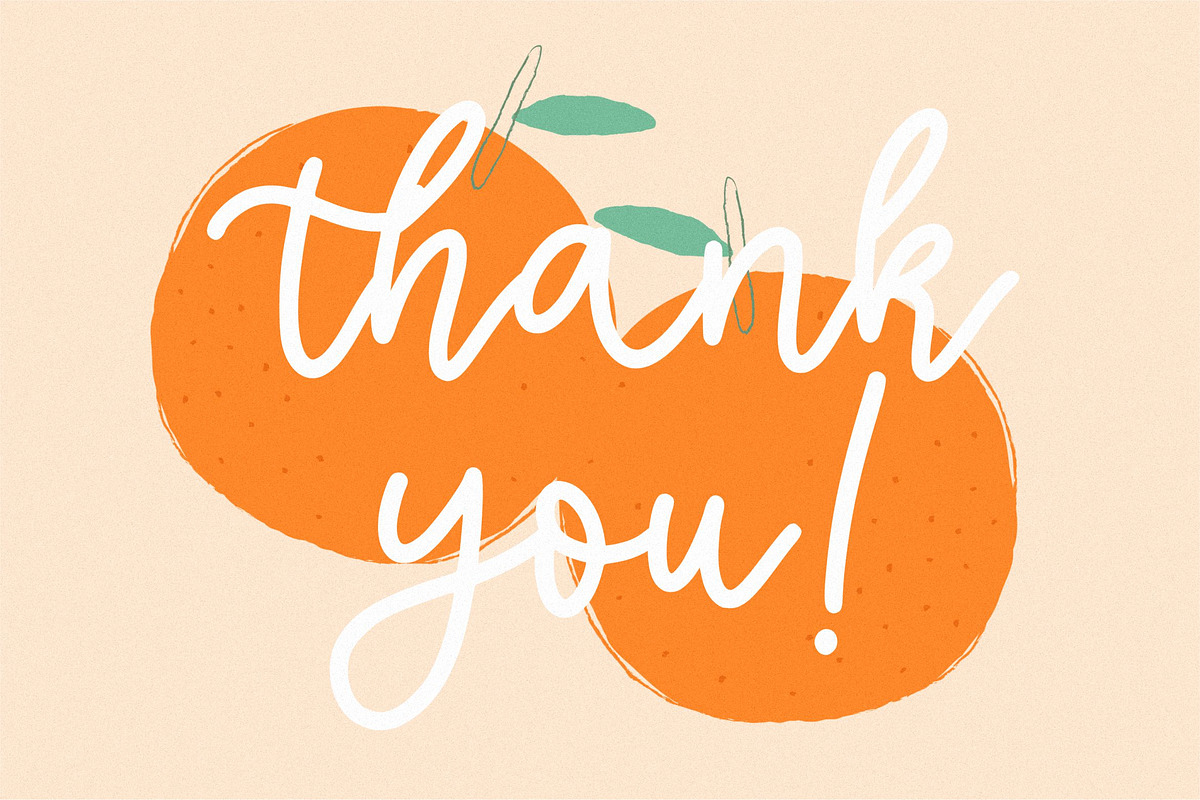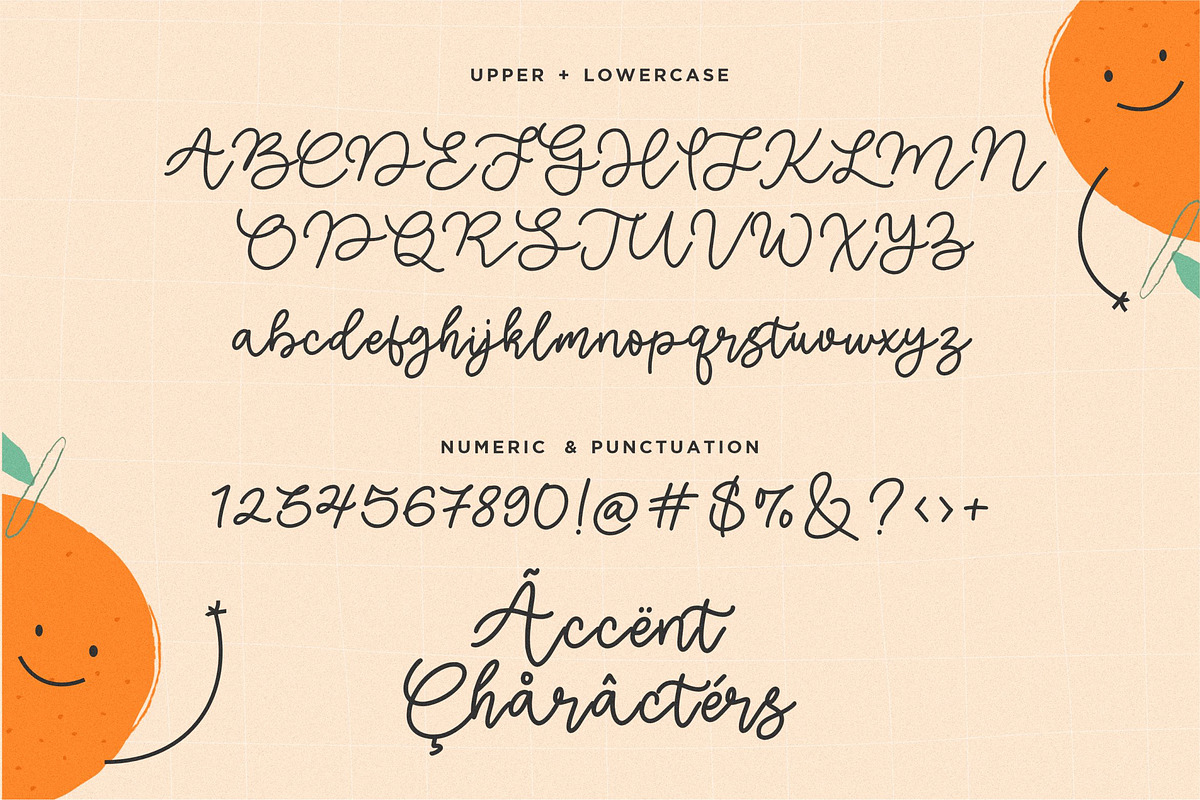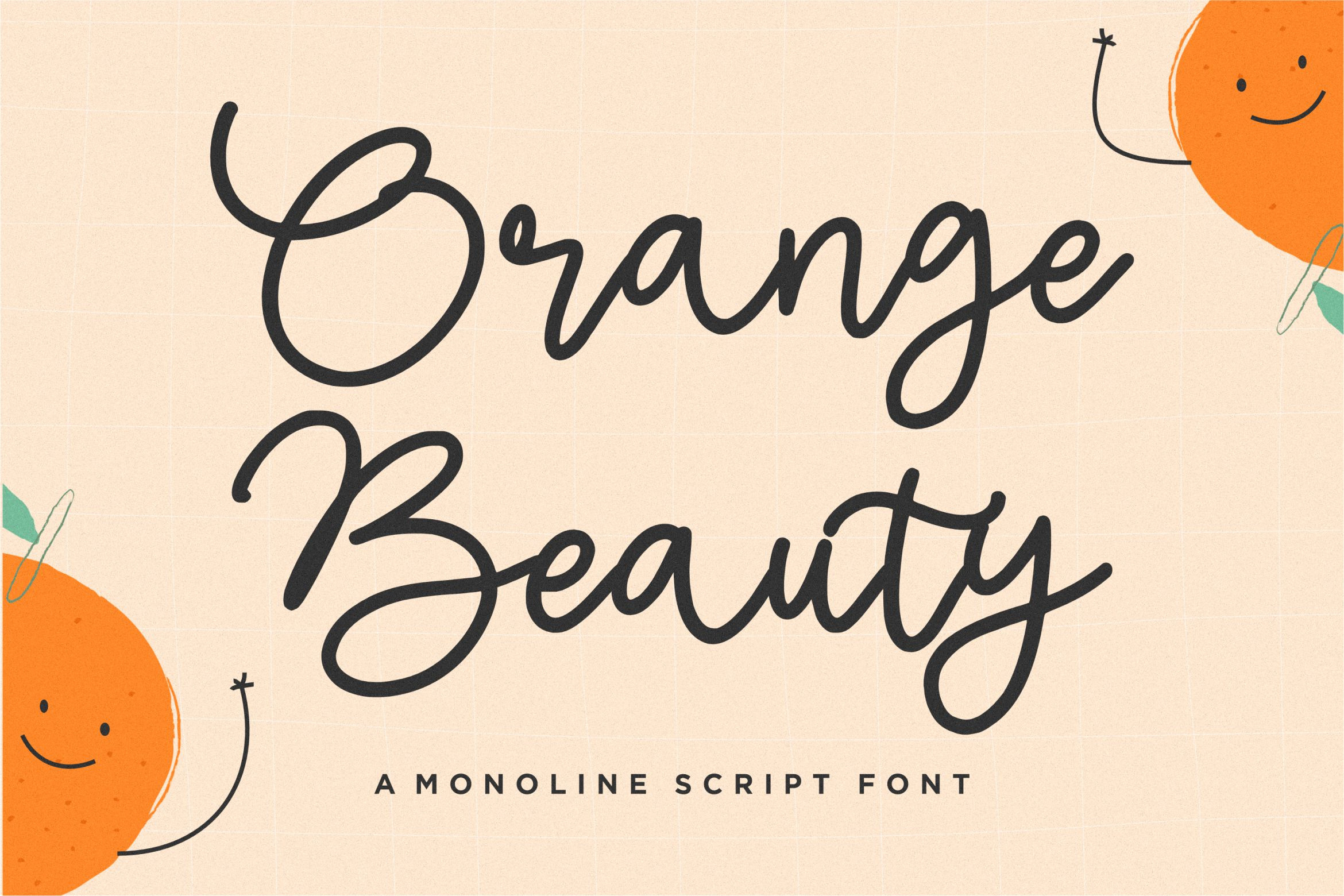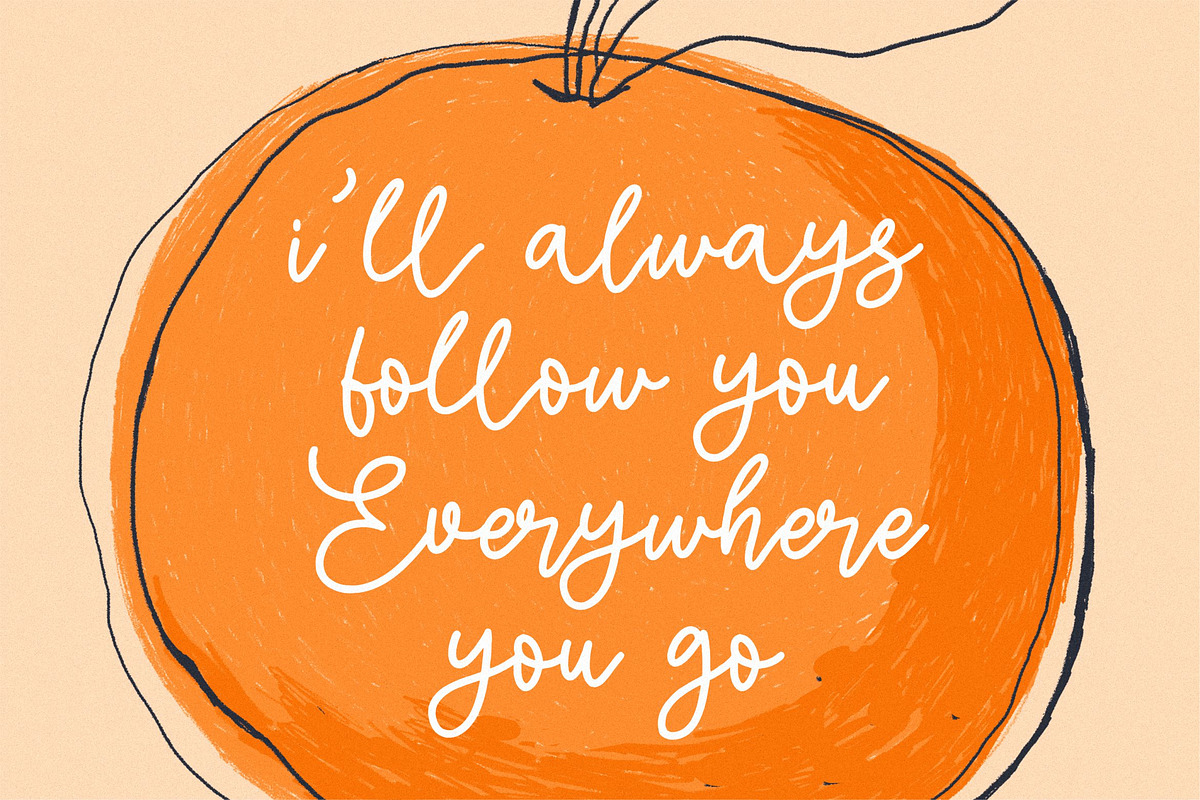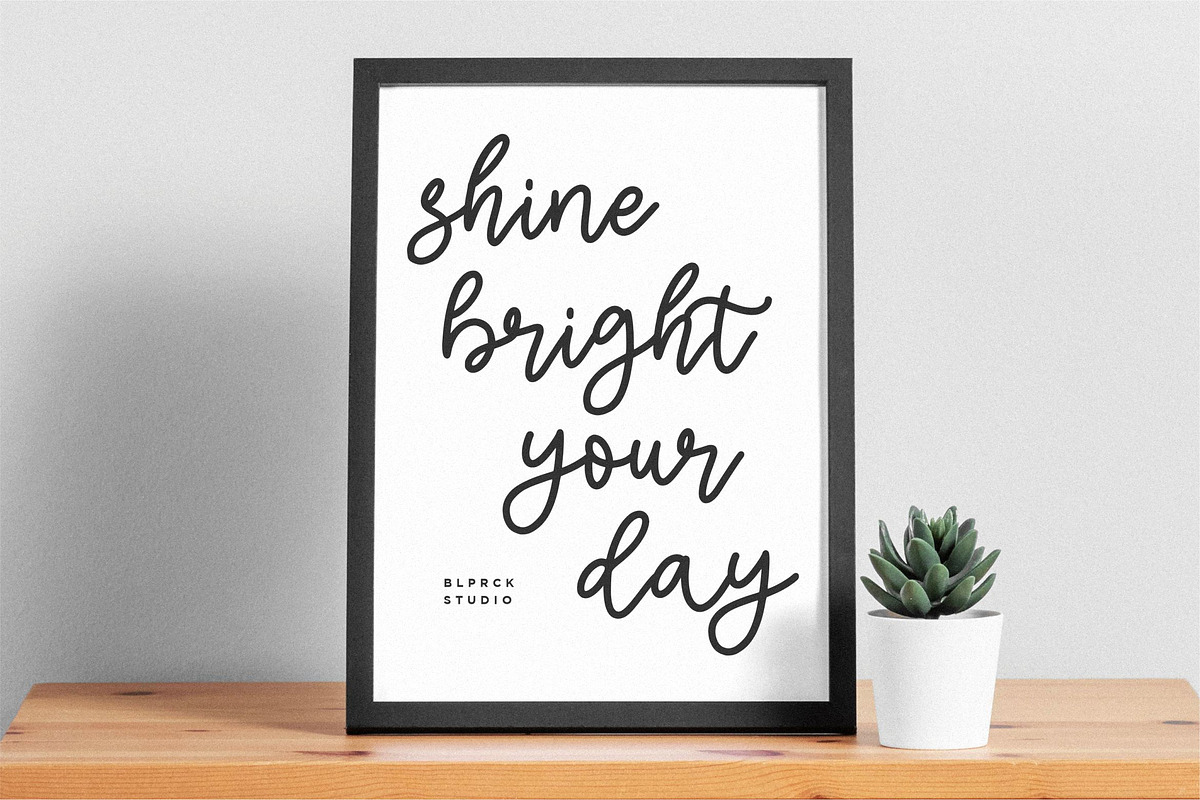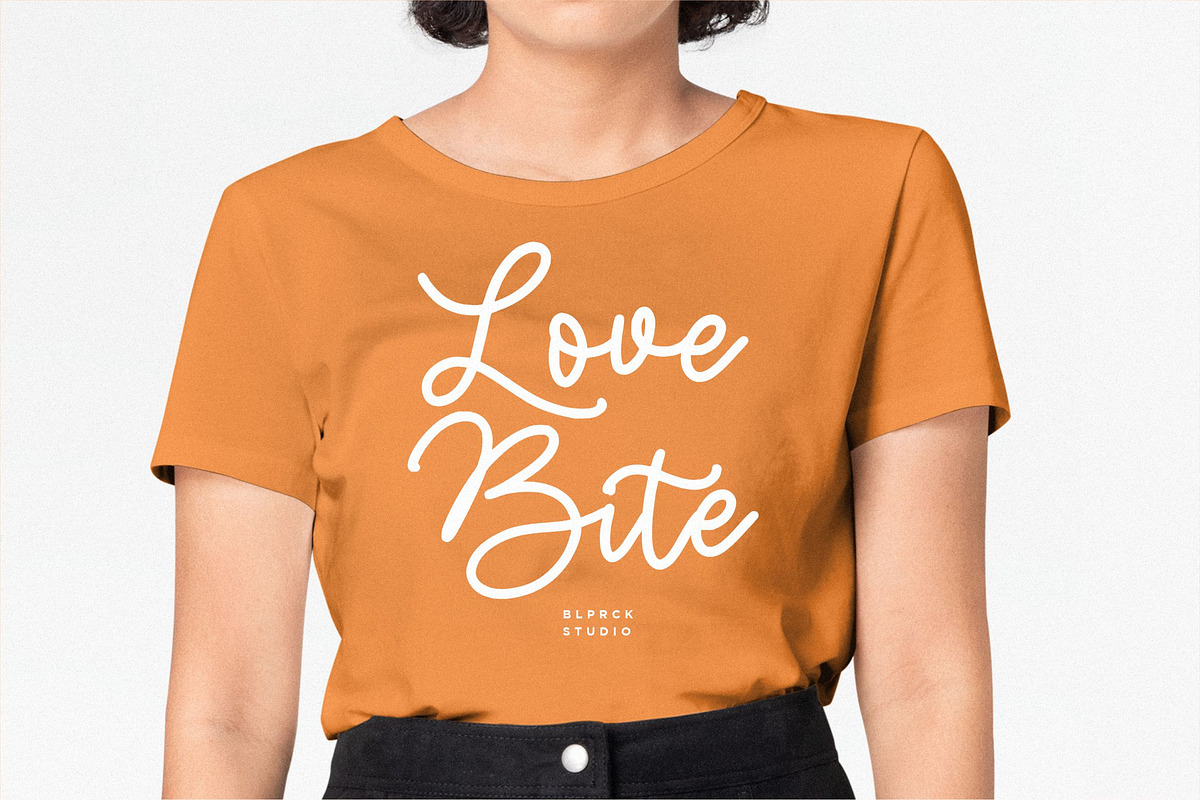
Orange Beauty Font
Introducing by Balpirick Studio.
Orange Beauty - a Monoline Script that's clean, elegant and perfect for a range of design projects! With its smooth, effortless lines and understated sophistication, this font is the perfect choice for those who want a modern look that's still timeless in its appeal.
Crafted with precision and care, this font is incredibly versatile and can be used for a range of design projects, including logos, branding, invitations, packaging, and more. With its simple yet refined aesthetic, it's sure to make a lasting impression on anyone who sees it.